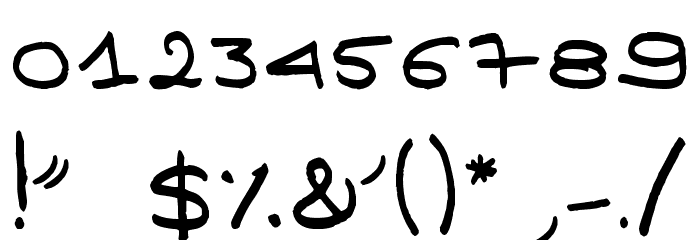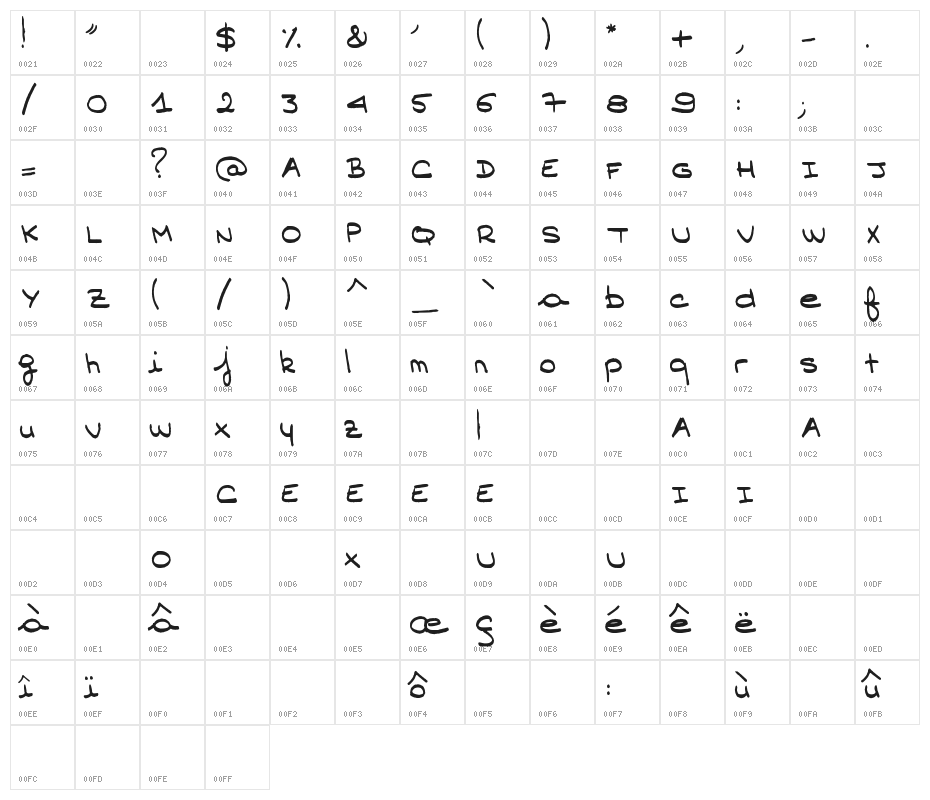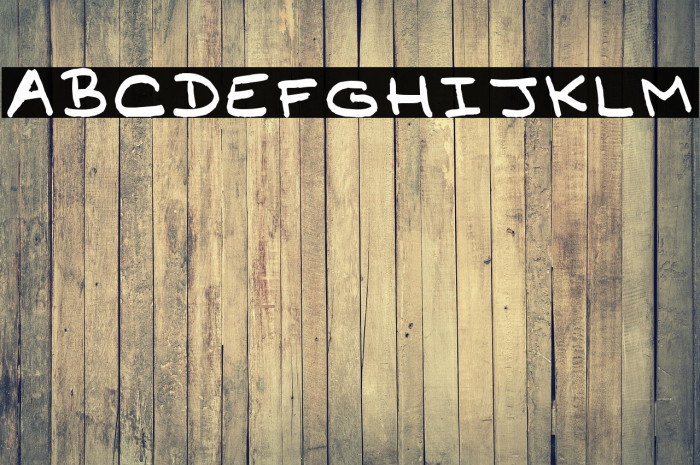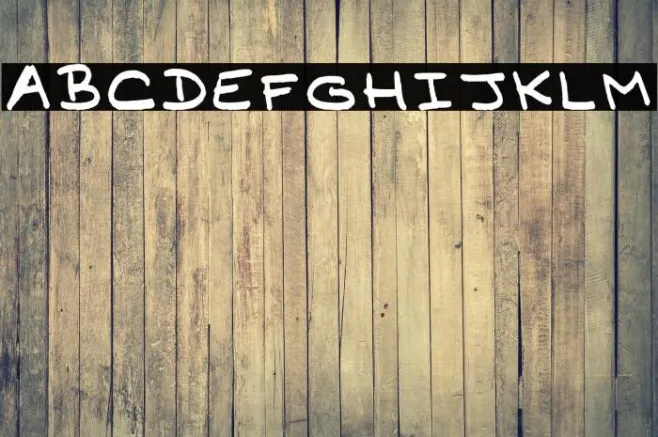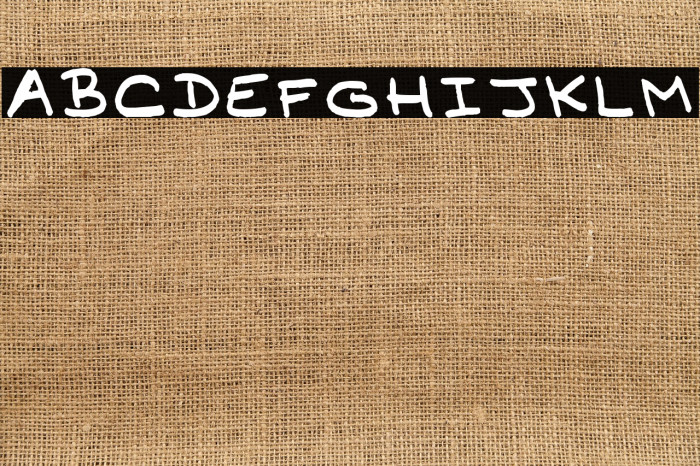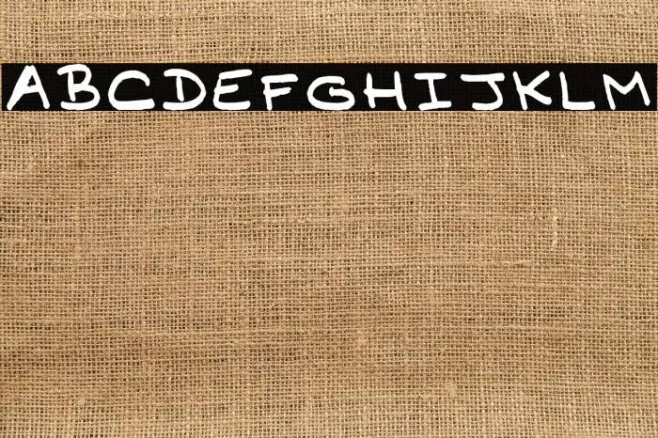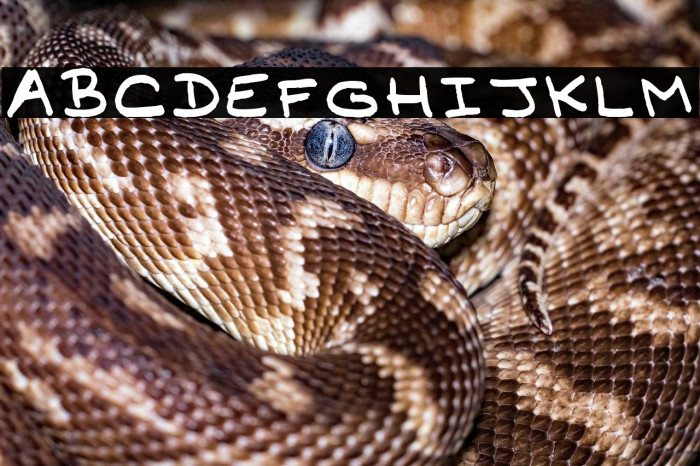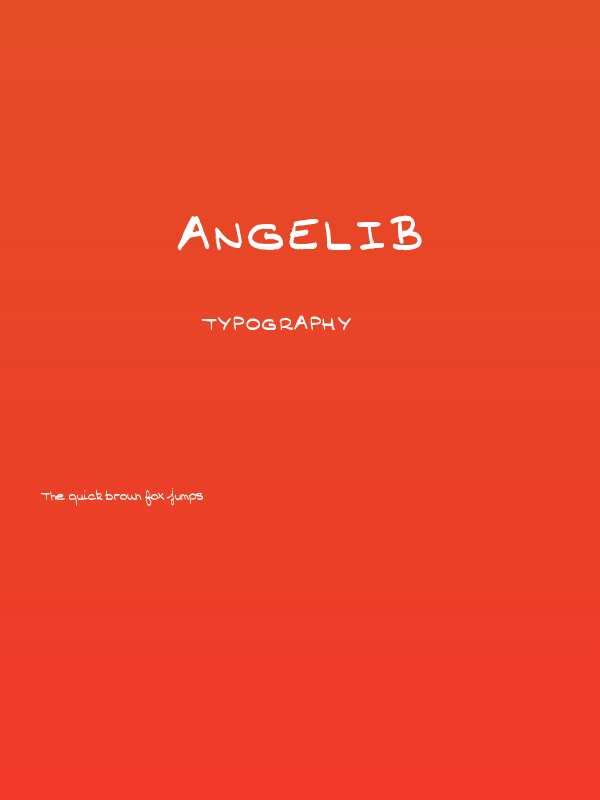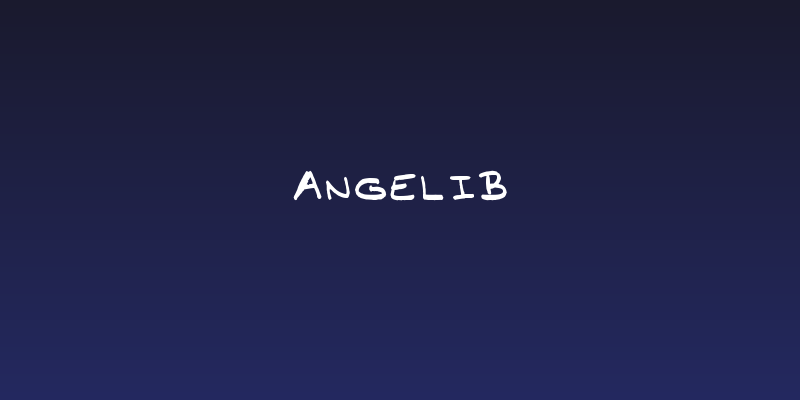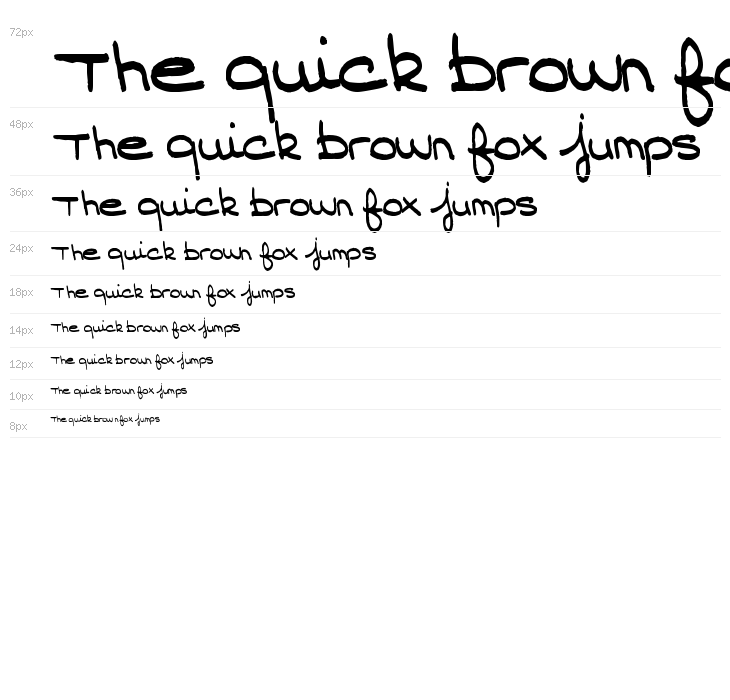
angelib Font
This font features a playful, handwritten style with a casual and informal appearance. The characters are slightly irregular, giving it a personal and authentic touch. The strokes are bold and rounded, providing a friendly and approachable feel. The uppercase and lowercase letters maintain a consistent style, with a slight slant that adds to the dynamic look. The numbers and special characters follow the same playful design, making the font versatile for various uses. Its overall appearance is reminiscent of a marker or brush pen, adding a touch of creativity and spontaneity.
A playful, handwritten font with bold, rounded strokes and a casual style.
- Font: angelib
- Proposed Projects: Ideal for greeting cards, children's books, casual branding, and social media graphics.
- Category: Handwritten
- Overall Style: Casual
- Use Case: Logos, Headlines, Informal Text